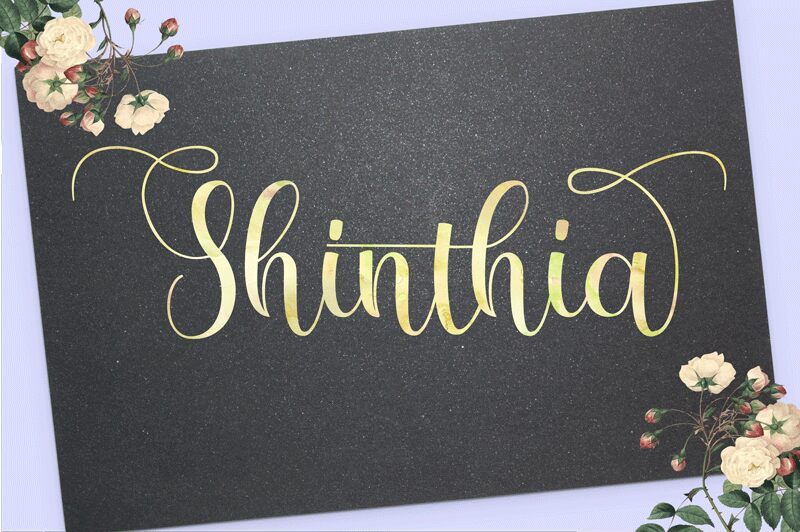
Shinthia
Shinthia, the semi-light, semi-condensed calligraphy font by Pollem Studio, exudes elegance and grace. Its flowing curves and delicate strokes evoke a sense of beauty and sophistication that makes it perfect for wedding invitations, high-end fashion branding, or any project in need of a touch of refined femininity. Whether you're designing a logo for a luxury spa or creating an art print for a chic boutique, Shinthia will elevate your work to new heights. Upgrade your design game with Shinthia today!